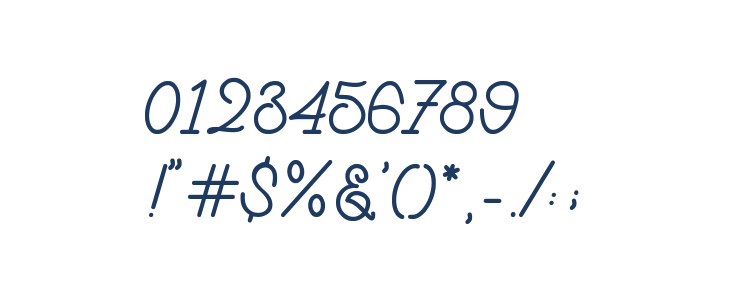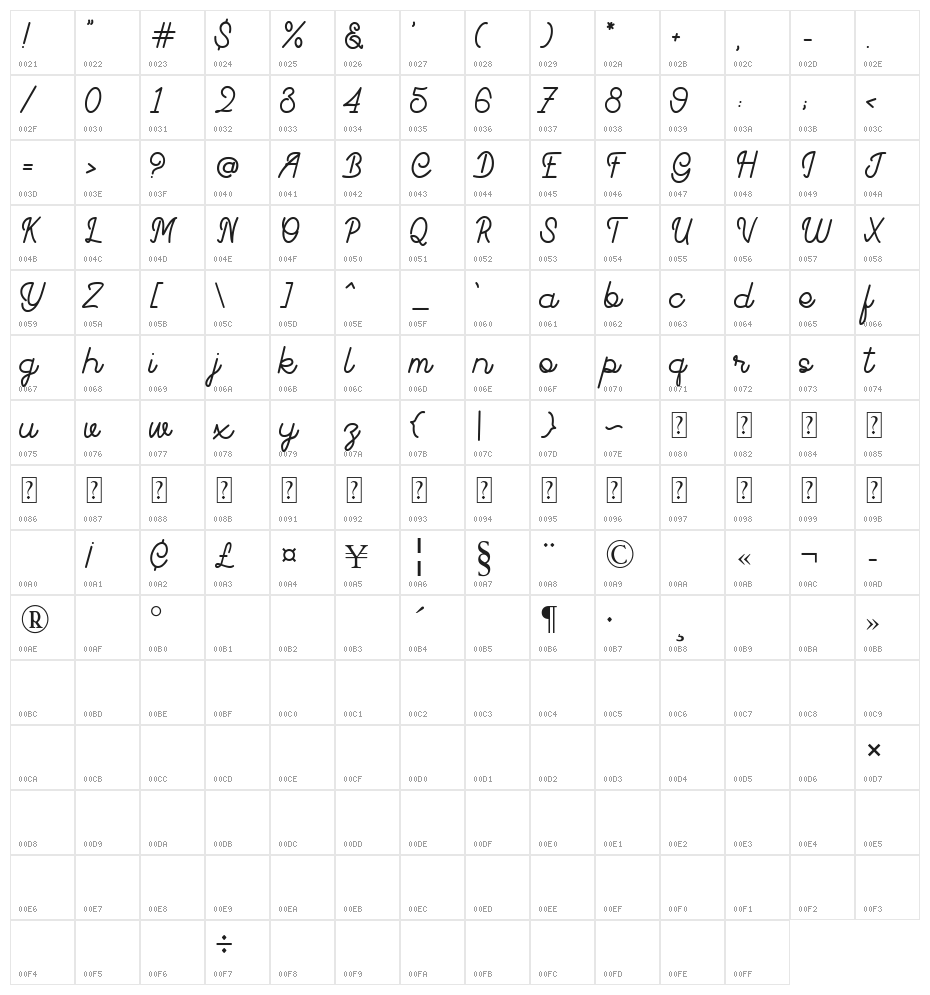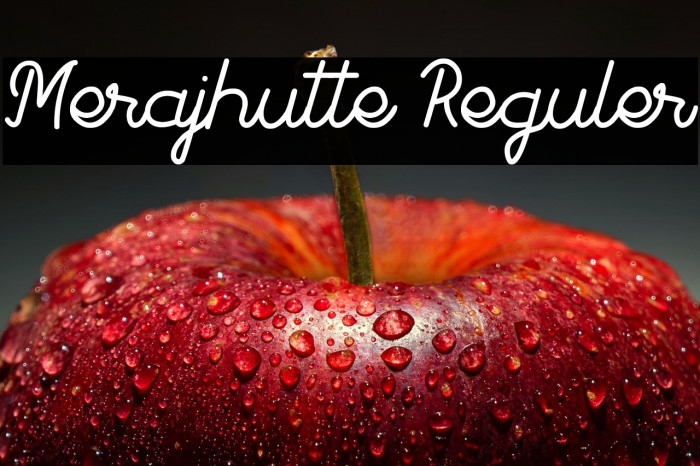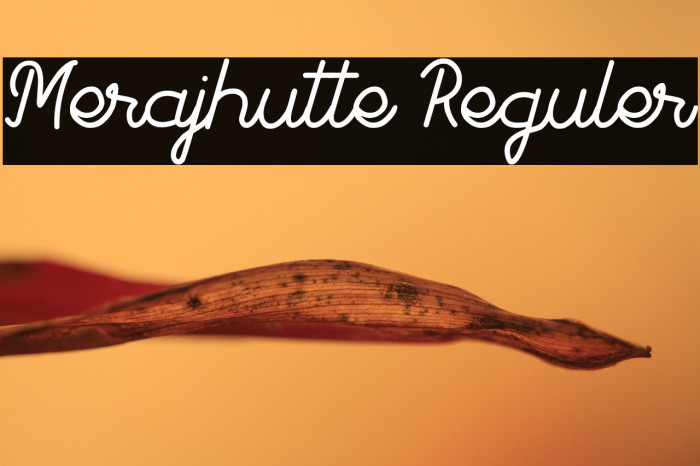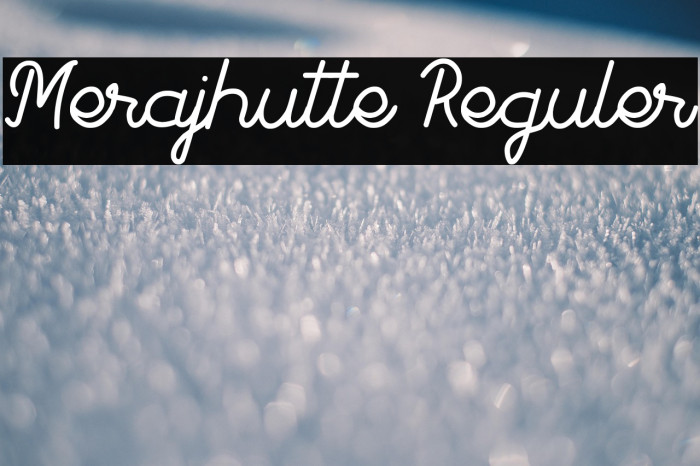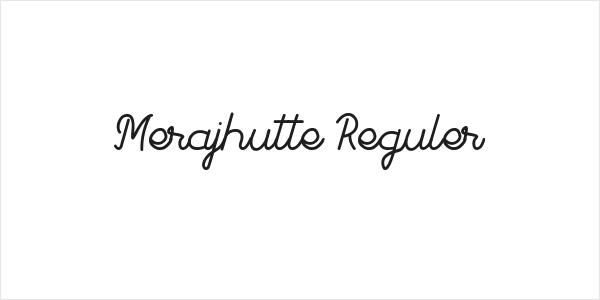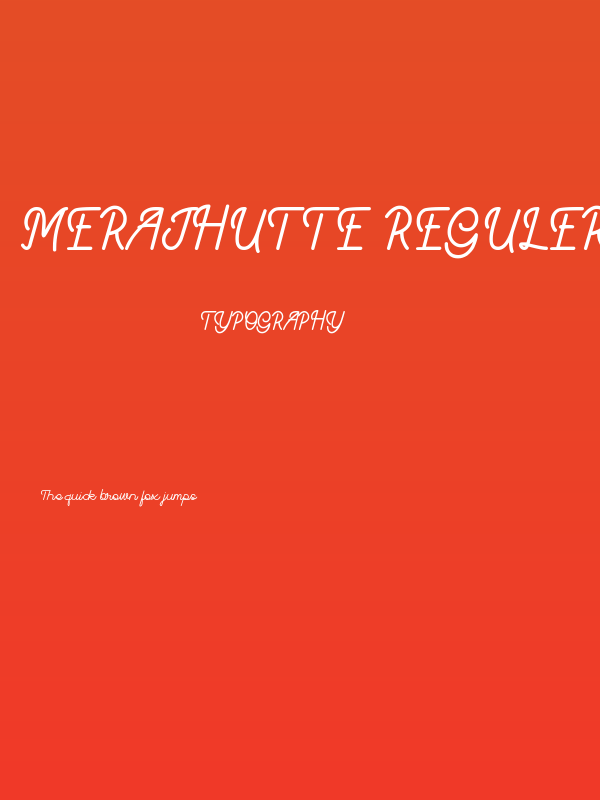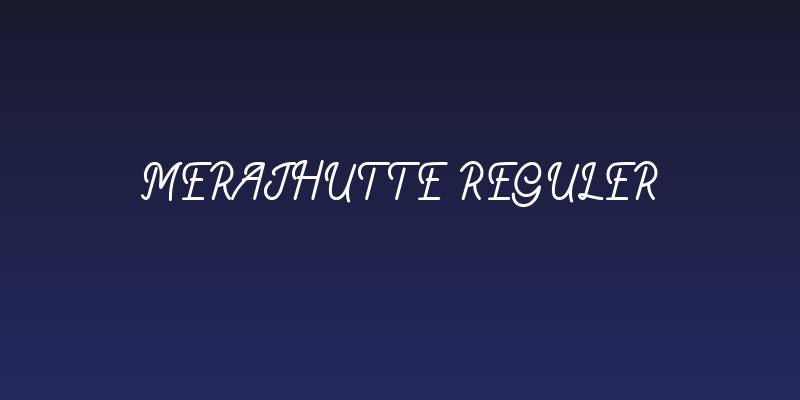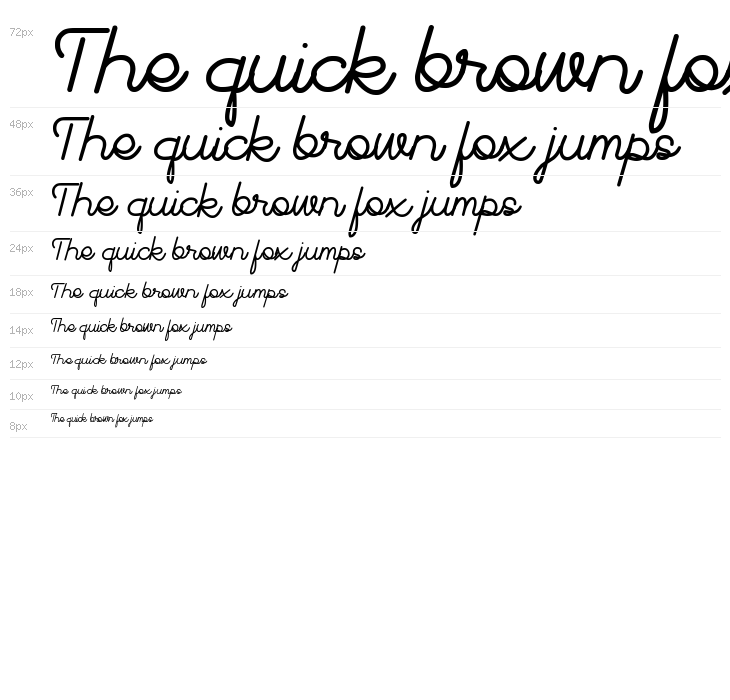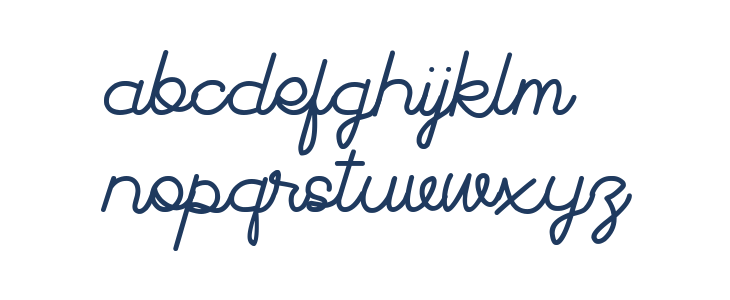
Merajhutte Reguler Font
Merajhutte Reguler Description
This font features a flowing, cursive style with smooth, connected letters that evoke a sense of elegance and fluidity. The uppercase letters maintain a consistent height, while the lowercase letters exhibit a slight slant, enhancing the script-like appearance. The numerals are distinct and easily readable, complementing the overall design. Special characters are seamlessly integrated, maintaining the cohesive look of the font. The strokes are uniform, with a medium contrast that adds to the legibility without detracting from the decorative nature.
| Overall Style | Elegant, Decorative |
| Use Case | Invitations, Branding, Decorative text |
| Proposed Projects | Ideal for wedding invitations, greeting cards, personal branding, and elegant signage. |